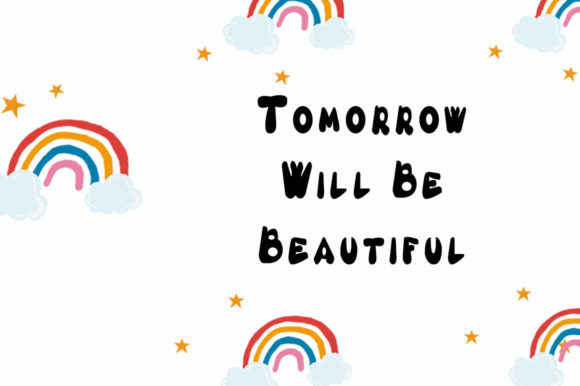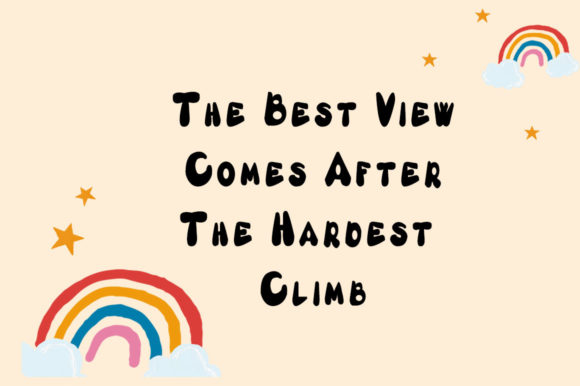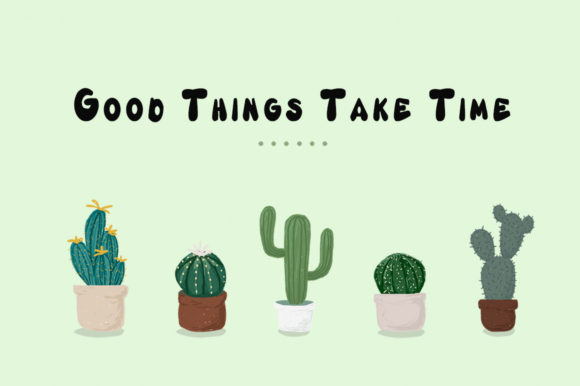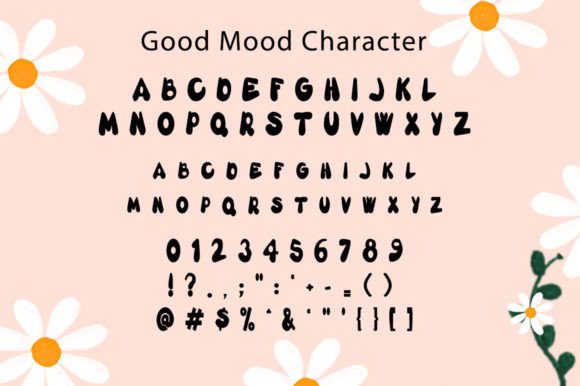
Introducing Good Mood Font: The Ultimate Handwritten Script for Creative Projects
Are you tired of using the same old fonts for your creative projects? Do you want to add a touch of personality and whimsy to your designs? Look no further than Good Mood Font, a cute and quirky handwritten script that is sure to bring a smile to your face. With its incredibly friendly feel, Good Mood Font is perfect for designers, crafters, and DIY enthusiasts looking to add a personal touch to their work.
What is Good Mood Font?
Good Mood Font is a unique and charming handwritten font that is designed to make your creative projects stand out. Its playful and carefree style is reminiscent of a happy, sunny day, and is sure to evoke feelings of joy and positivity in anyone who sees it. Whether you’re looking for fonts for Instagram, handwritten scripts for DIY projects, or simply want to add a personal touch to your digital designs, Good Mood Font is the perfect choice.
Key Features of Good Mood Font
- Cute and Quirky Design: Good Mood Font features a playful and whimsical design that is sure to capture the attention of your audience.
- Handwritten Style: With its handwritten style, Good Mood Font adds a personal touch to any creative project, making it perfect for DIY enthusiasts and designers.
- Incredibly Friendly Feel: The font’s friendly feel makes it perfect for use in a variety of creative projects, from social media graphics to handmade crafts.
- Versatile: Good Mood Font can be used in a variety of creative projects, including Instagram graphics, DIY projects, digital designs, and more.
Uses for Good Mood Font
Good Mood Font is a versatile font that can be used in a variety of creative projects. Here are just a few ideas to get you started:
- Instagram Graphics: Add a personal touch to your Instagram graphics with Good Mood Font. Use it to create eye-catching captions, quotes, and more.
- DIY Projects: Good Mood Font is perfect for use in DIY projects, such as handmade cards, gift tags, and other paper crafts.
- Digital Designs: Use Good Mood Font to add a personal touch to your digital designs, such as social media graphics, blog posts, and more.
- Handmade Crafts: Good Mood Font is perfect for use in handmade crafts, such as knitting patterns, sewing projects, and more.
Why Choose Good Mood Font?
With so many fonts to choose from, why should you choose Good Mood Font? Here are just a few reasons:
- Unique Design: Good Mood Font features a unique and charming design that is sure to make your creative projects stand out.
- Easy to Read: Despite its playful style, Good Mood Font is easy to read, making it perfect for use in a variety of creative projects.
- Versatile: Good Mood Font can be used in a variety of creative projects, making it a great addition to any designer’s or crafter’s toolkit.